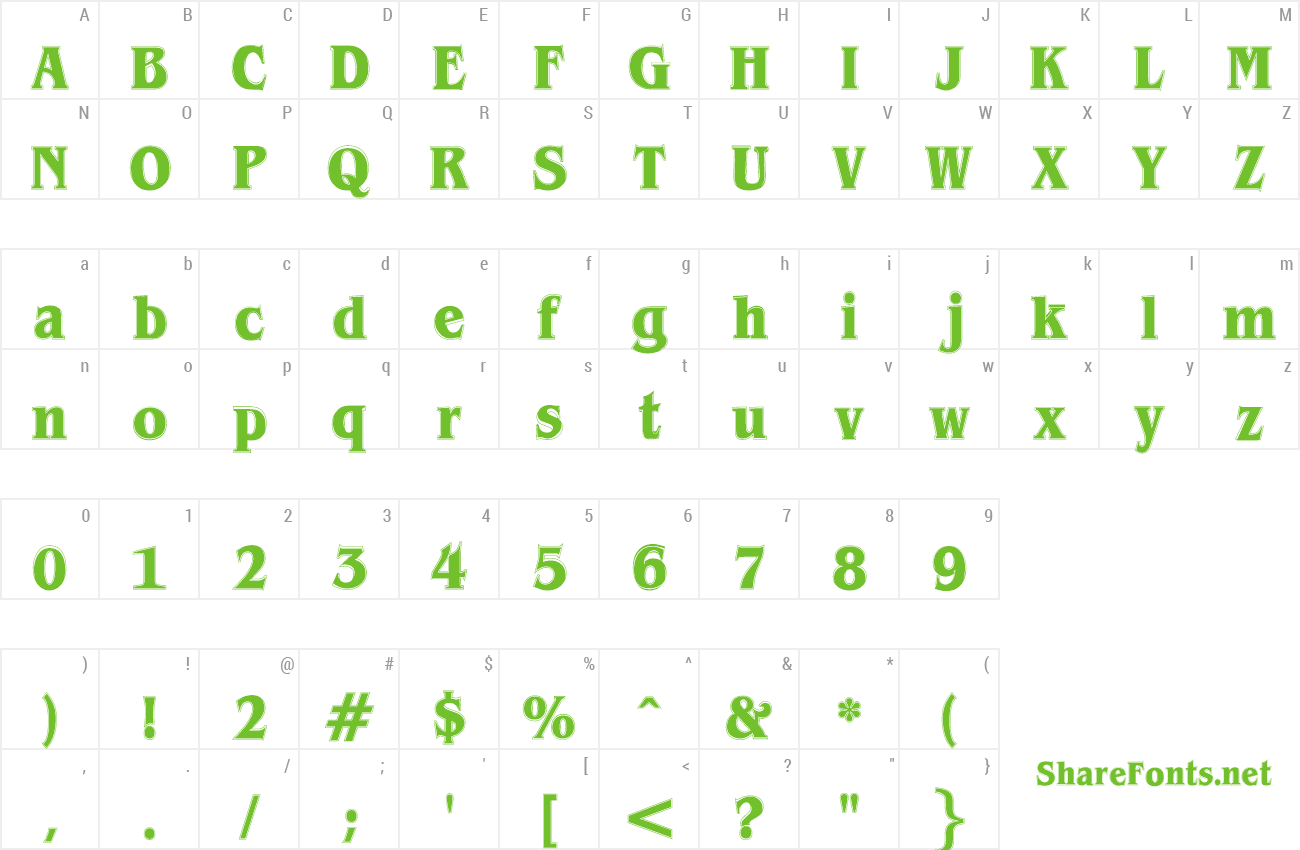
Brian James Font
Brian James Font - Web brian james font family. The brian james font has been downloaded 47,355 times. Brian james is a free font for commercial use created by typographer mediengestaltung. Web brian james font download is available free from fontget. Heavy, outline, retro/vintage, serif, incised/inline, web font, bold, condensed/tight, multilingual. Web download the brian james font by dieter steffmann. Brian james family by dieter steffmann. Web brian james font download. Brian james is a display type font that can be used on any device. Download free for commercial use.
Web brian james font download. Web brian james font download is available free from fontget. Web brian james font family. Brian james is a free font for commercial use created by typographer mediengestaltung. Download free for commercial use. The brian james font has been downloaded 47,355 times. Brian james is a display type font that can be used on any device. Web download the brian james font by dieter steffmann. Brian james family by dieter steffmann. Heavy, outline, retro/vintage, serif, incised/inline, web font, bold, condensed/tight, multilingual.
The brian james font has been downloaded 47,355 times. Heavy, outline, retro/vintage, serif, incised/inline, web font, bold, condensed/tight, multilingual. Web brian james font family. Brian james family by dieter steffmann. Brian james is a display type font that can be used on any device. Web brian james font download is available free from fontget. Web brian james font download. Download free for commercial use. Web download the brian james font by dieter steffmann. Brian james is a free font for commercial use created by typographer mediengestaltung.
Web brian james font download. Brian james is a free font for commercial use created by typographer mediengestaltung. Brian james is a display type font that can be used on any device. Web download the brian james font by dieter steffmann. Web brian james font download is available free from fontget.
Web download the brian james font by dieter steffmann. Download free for commercial use. Web brian james font download. Web brian james font download is available free from fontget. Heavy, outline, retro/vintage, serif, incised/inline, web font, bold, condensed/tight, multilingual.
Web brian james font download is available free from fontget. Web brian james font family. Brian james is a display type font that can be used on any device. Brian james is a free font for commercial use created by typographer mediengestaltung. Web download the brian james font by dieter steffmann.
Web brian james font download. Heavy, outline, retro/vintage, serif, incised/inline, web font, bold, condensed/tight, multilingual. Web download the brian james font by dieter steffmann. Brian james is a free font for commercial use created by typographer mediengestaltung. Brian james family by dieter steffmann.
Brian James Contour Font
Web brian james font download. Web brian james font download is available free from fontget. Web download the brian james font by dieter steffmann. Brian james family by dieter steffmann. Brian james is a display type font that can be used on any device.
Brian James Condensed Bold free Font What Font Is
Web brian james font download. Brian james is a display type font that can be used on any device. Web brian james font family. The brian james font has been downloaded 47,355 times. Web download the brian james font by dieter steffmann.
Brian James Font FREE Download & Similar Fonts FontGet
Web download the brian james font by dieter steffmann. Web brian james font download. The brian james font has been downloaded 47,355 times. Web brian james font family. Download free for commercial use.
Brian James Condensed Bold Download For Free, View Sample Text
Brian james is a free font for commercial use created by typographer mediengestaltung. Web brian james font family. Download free for commercial use. Web brian james font download. Brian james is a display type font that can be used on any device.
Web Download The Brian James Font By Dieter Steffmann.
Heavy, outline, retro/vintage, serif, incised/inline, web font, bold, condensed/tight, multilingual. Web brian james font family. The brian james font has been downloaded 47,355 times. Brian james is a free font for commercial use created by typographer mediengestaltung.
Brian James Is A Display Type Font That Can Be Used On Any Device.